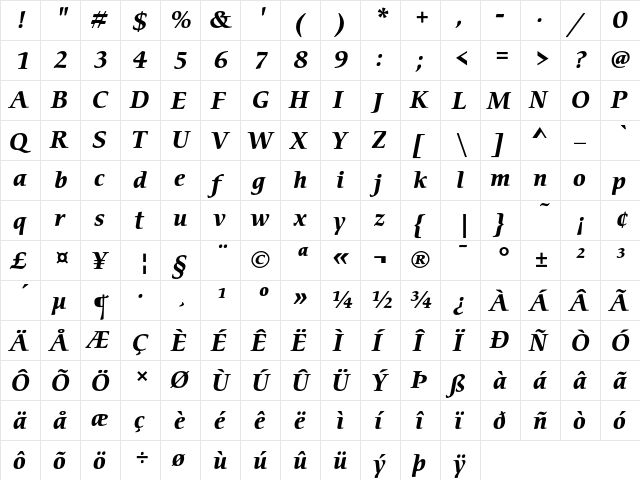
ITC Cerigo Bold Italic Font Preview
Design Context for ITC Cerigo Typeface
ITC Cerigo offers clean, dependable letterforms without strong stylistic allegiance, making it a practical choice for designers who need flexibility. The dynamic lean of this cut emphasises speed and emphasis in any layout. Its bold stroke weight gives it real presence on the page.
Pro Tip: Try ITC Cerigo for annotation and caption copy alongside an upright companion — the contrast in angle creates a dynamic but ordered typographic system.